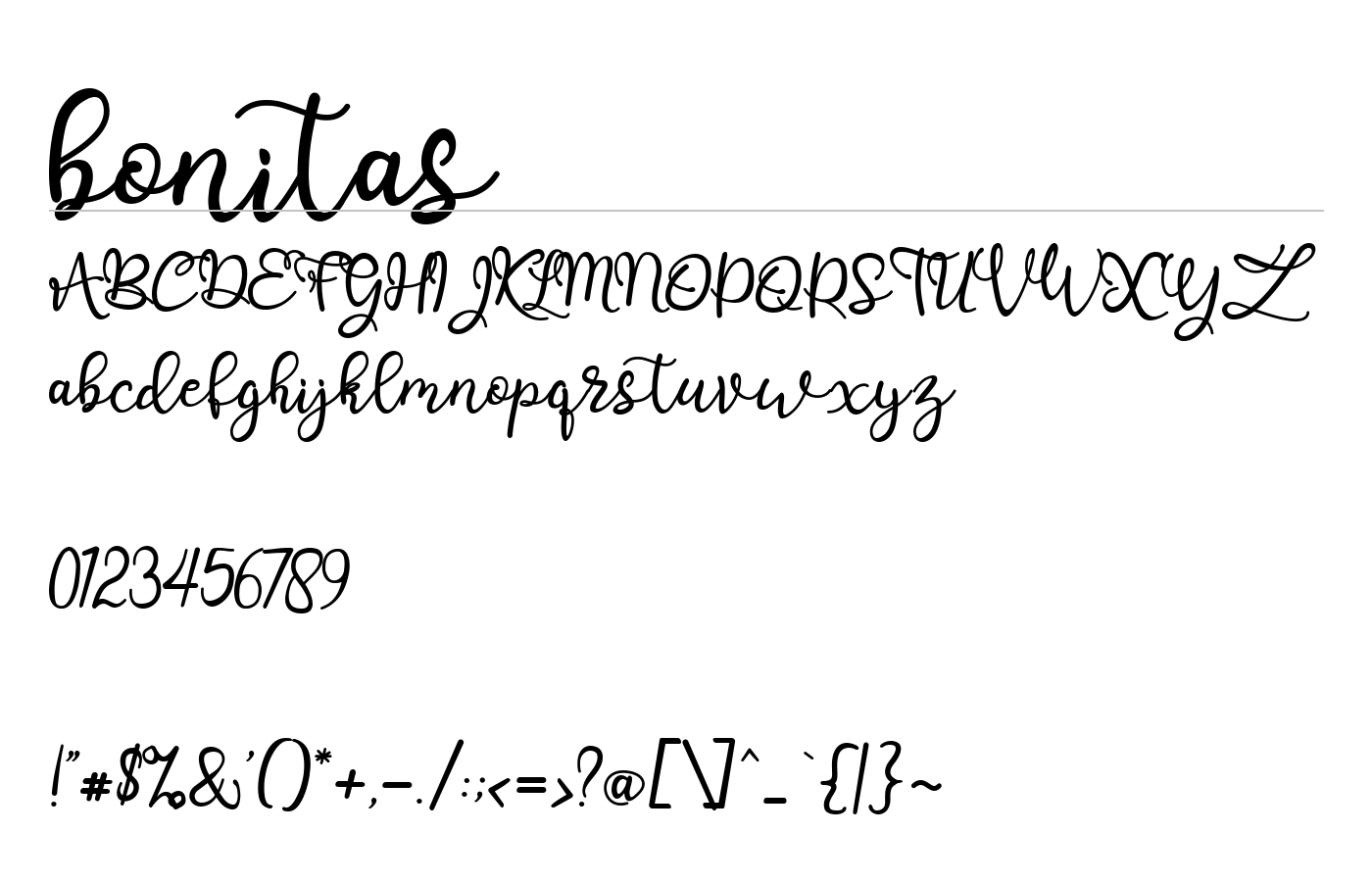
Bonitas is a playful, elegant script font with a handwritten feel, featuring smooth, flowing lines and unique swirls in both uppercase and lowercase letters. Its light, airy strokes and informal style make it perfect for creative and feminine branding, invitations, and personal projects that aim to convey warmth and charm. This font works well for headlines and decorative uses where a friendly and stylish touch is desired.
| Font family | bonitas Font |
| Designer | Raditya Putra Pratama - Raditya Type Studio |